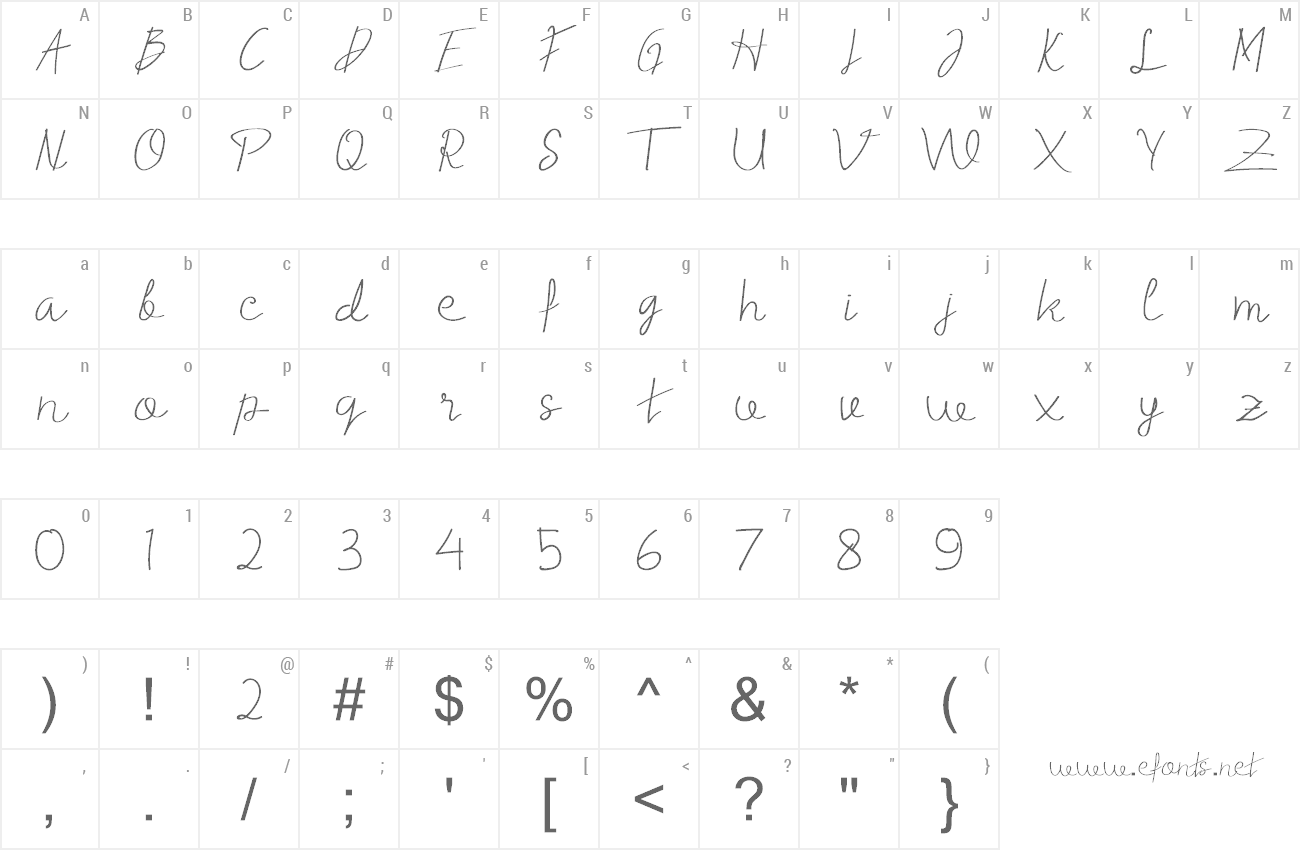
Preview and download Bravani Font. Created by Dawn Studio in Script Handwritten styles with Free for personal use license.
Bravani is Classy Signature font that perfect for photography, signature, branding. It is so beautiful and classy, simple but strong. NOTE : This demo is for PERSONAL USE ONLY! But any donation are very appreciated. Paypal account for donation : https://www.paypal.me/frachmadi13 link to purchase full version and commercial license : https://fontbundles.net/dawnstudio/193978-bravani-font Please visit our store for more great fonts : https://fontbundles.net/dawnstudio Hope you enjoy with our font! Thank you for your purchase!! Thank you |